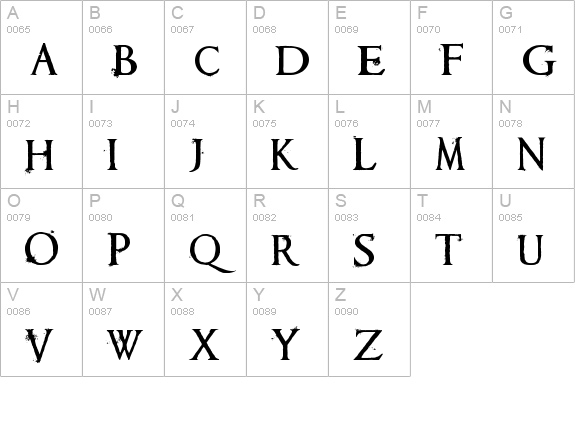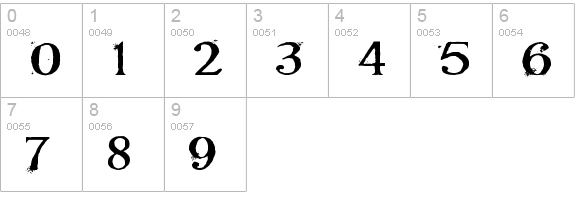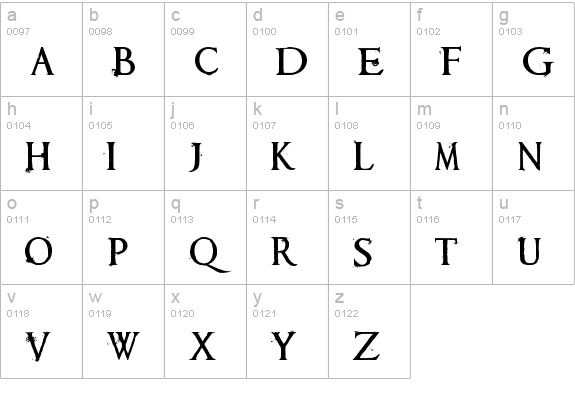
Requiem Font Details
Requiem font is a stunning typeface that exudes elegance and sophistication. Its graceful curves and delicate lines make it the perfect choice for any design project that requires a touch of class. Requiem font is not only visually appealing, but it also offers excellent legibility, ensuring that your message is conveyed with clarity. One of the best things about Requiem font is that it is free! Yes, you read that right. This exquisite font can be downloaded for free at FontsMarket.com. Whether you are a professional designer or a hobbyist, you can now add this incredible font to your collection without breaking the bank. Requiem font is versatile and can be used for a wide range of applications. From wedding invitations to business cards, from logos to book covers, this font is suitable for any project that demands a touch of sophistication. Its timeless design ensures that it will never go out of style. The attention to detail in Requiem font is truly remarkable. Each letter has been meticulously crafted, resulting in a harmonious and balanced typeface. The thin strokes and subtle serifs give it a refined and polished look, making it a favorite among designers who appreciate the finer things in life. Whether you are designing for print or digital media, Requiem font will elevate your work to new heights. Its classic charm and modern sensibility make it a versatile and timeless choice. With its free availability on FontsMarket.com, there is no reason not to add this extraordinary font to your collection today.